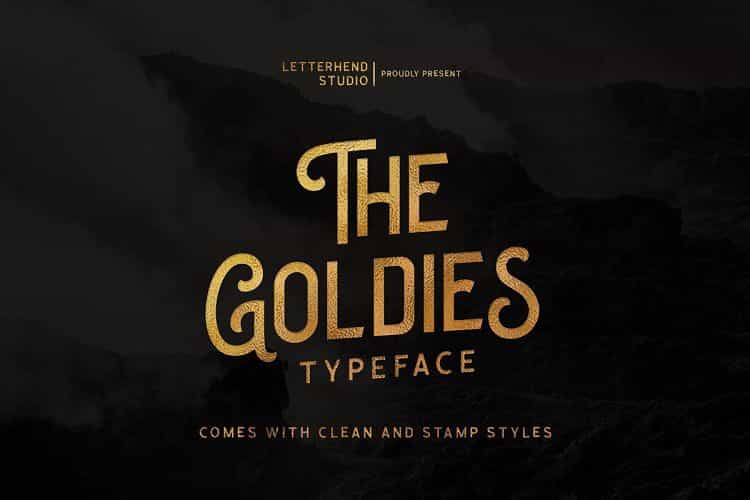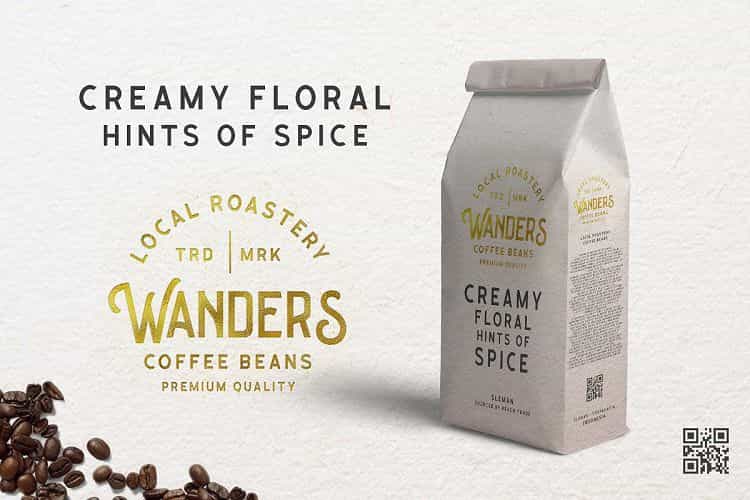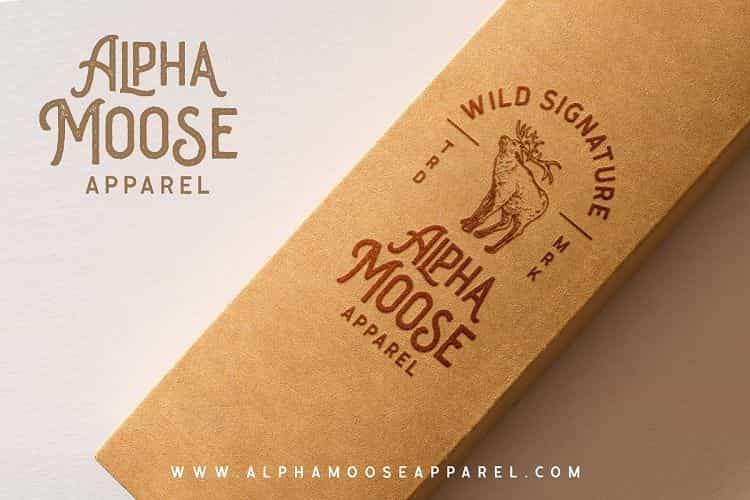
Introducing The Goldies Font! It is the product of Letterhend and it is created by them. The Goldies is a A Display Typeface Family which fits you who need typeface for headline, logotype, apparel, invitation, branding packaging advertising etc. This typeface comes in uppercase lowercase punctuations symbols numerals stylistic set alternate ligatures etc.